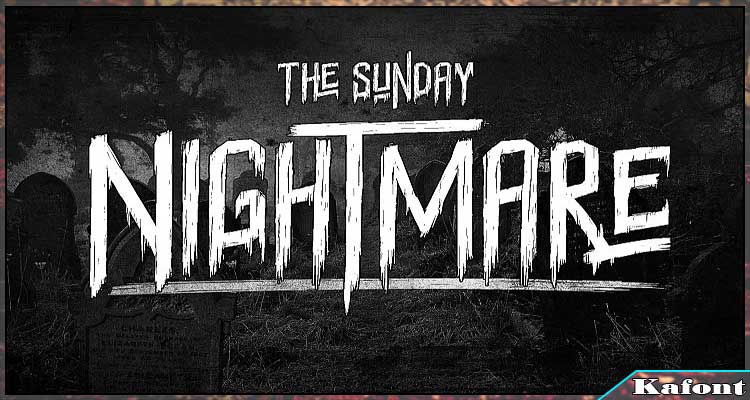
Sunday Nightmare Brush is an impressive typeface free for every design. Also, the font style does fit the Halloween theme.
Halloween is a fun yet scary season. It is when people are trying to make creepy stuff. In case you are running a campaign with this theme, you may want your products to be more outstanding and creepier. Therefore, you are recommended to try a font style called Sunday Nightmare. It is a unique typeface that adds more scariness to your designs. By using this font, you will have lots of amazing designs for the Halloween festival.
This handwritten font comes with unique strokes with a ghostly vibe. Hence, it makes your designs very scary. You can add the font to various projects like branding materials, digital lettering, fashion, quotes, logos, posters, cards, and more. Keep in mind that Sunday Nightmare costs nothing for use in personal or commercial projects.